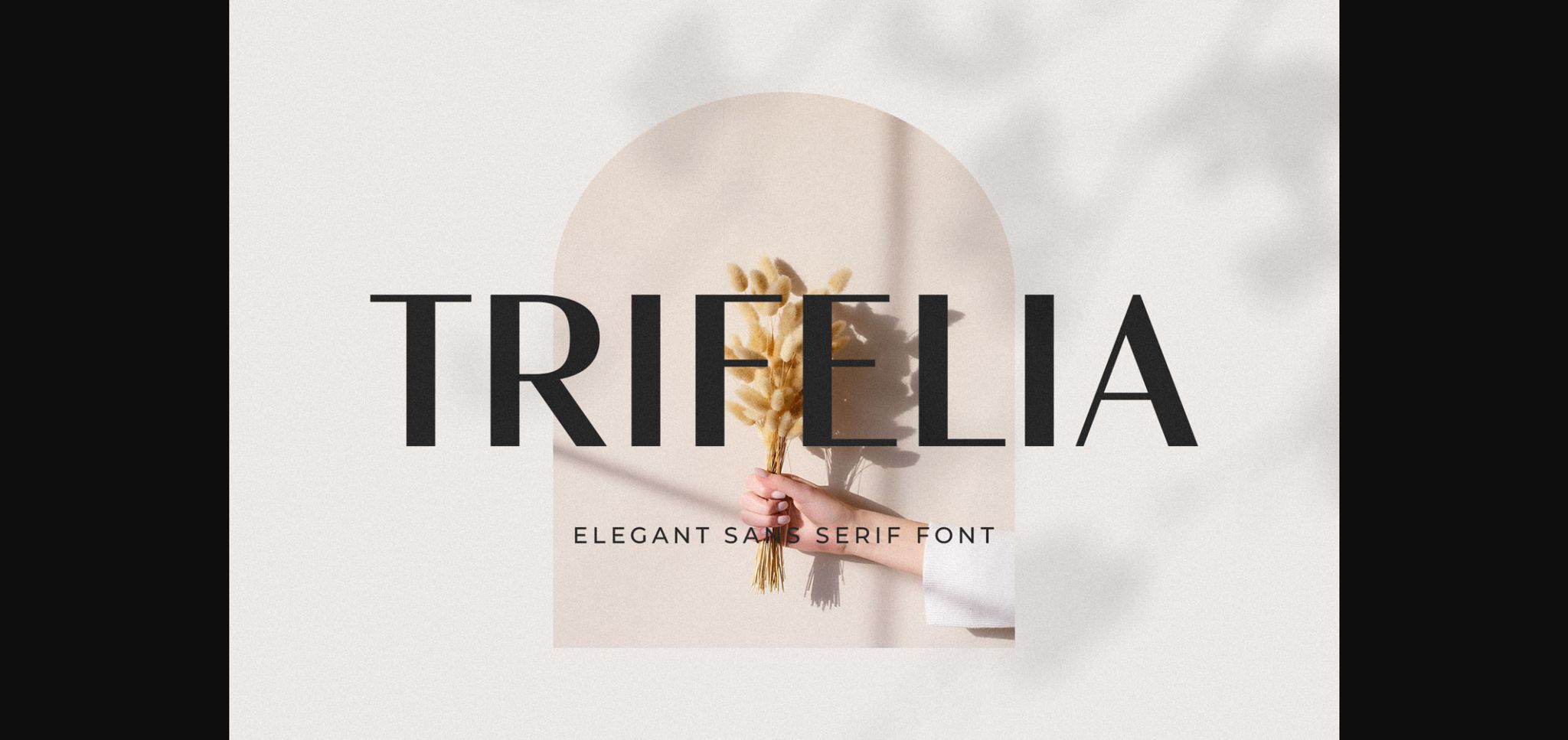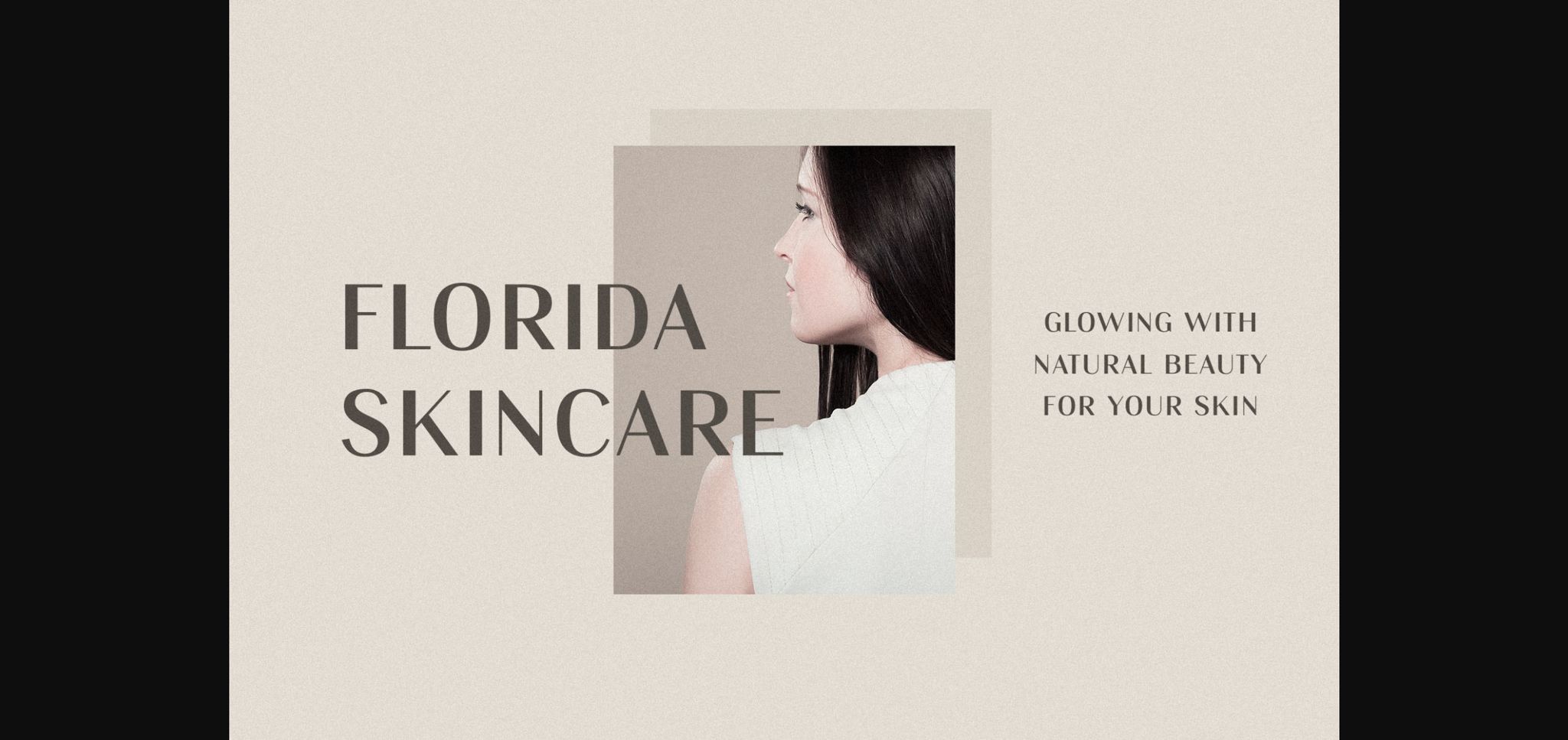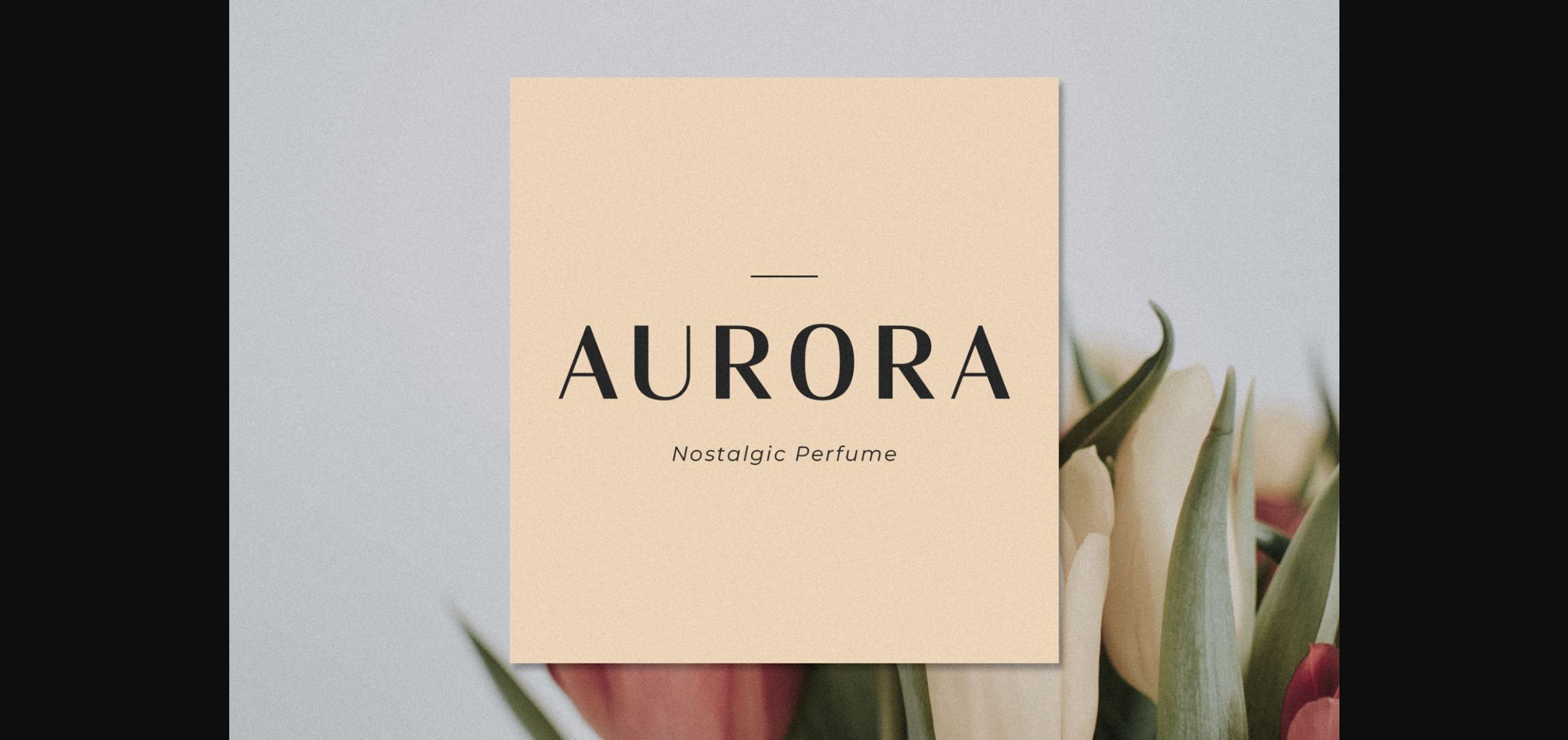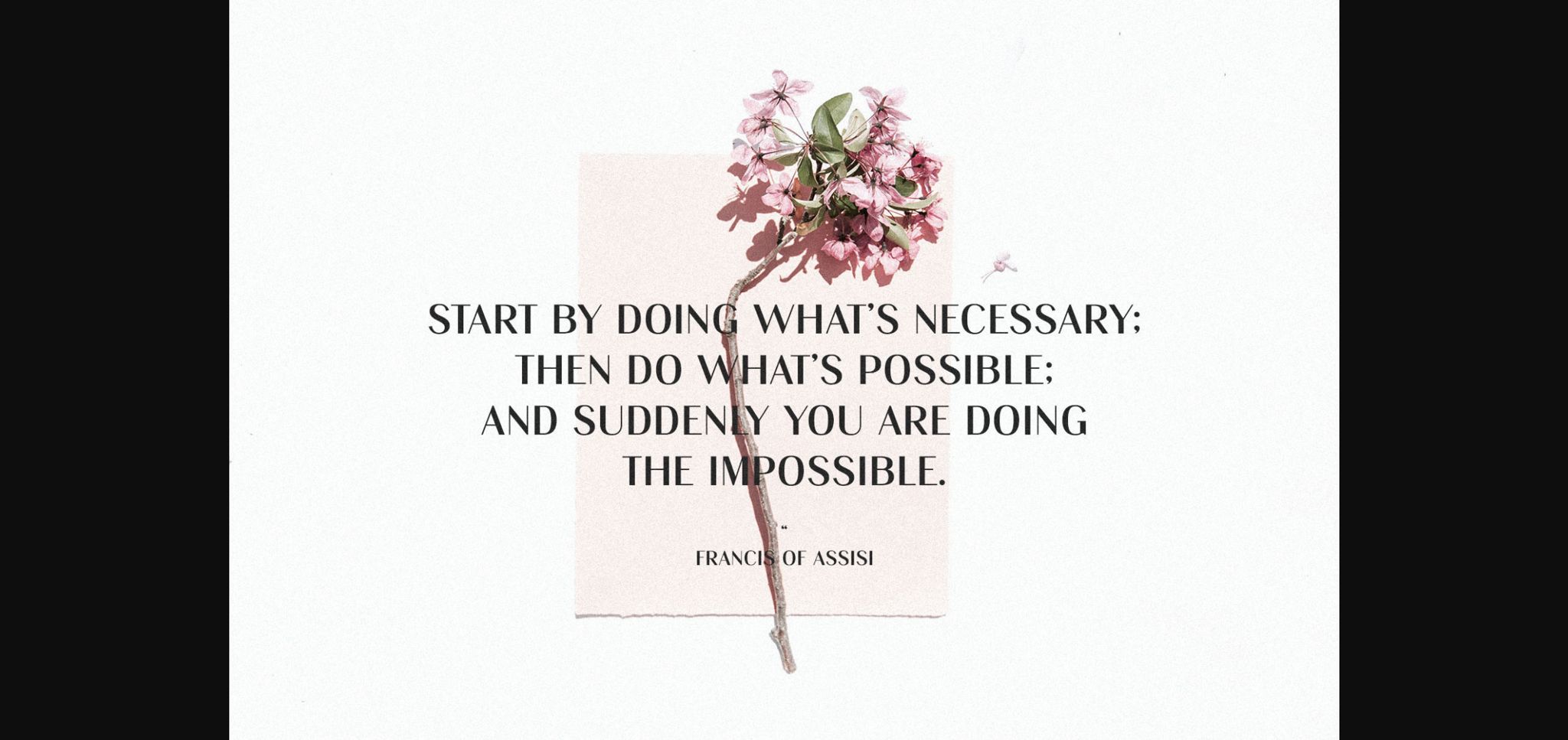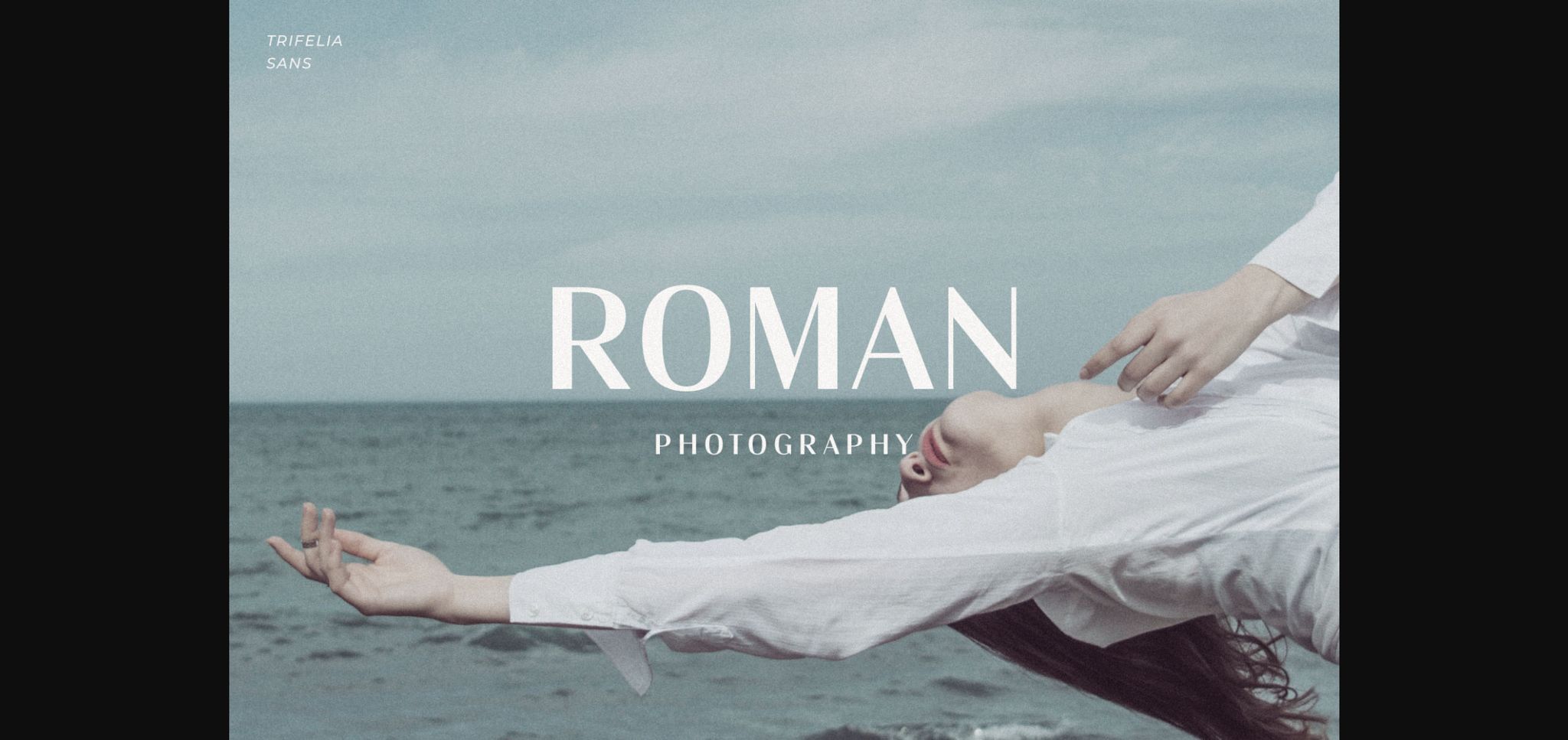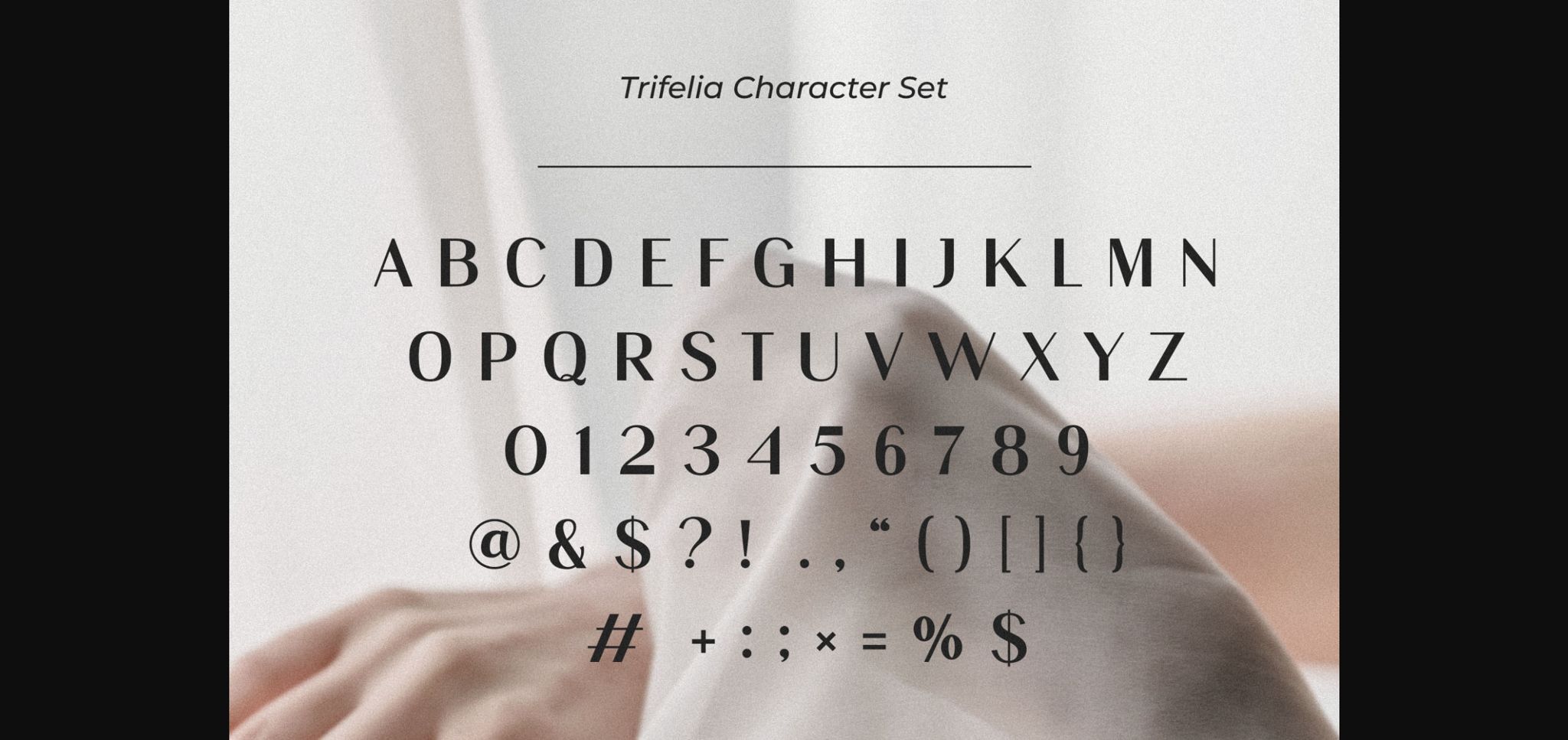
About Trifelia Font
Trifelia is a modern and sleek sans serif font. It is the best choice for creating eye-catching logos, branding, and quotes. Every letter has a unique and beautiful touch, which will make your design come alive!